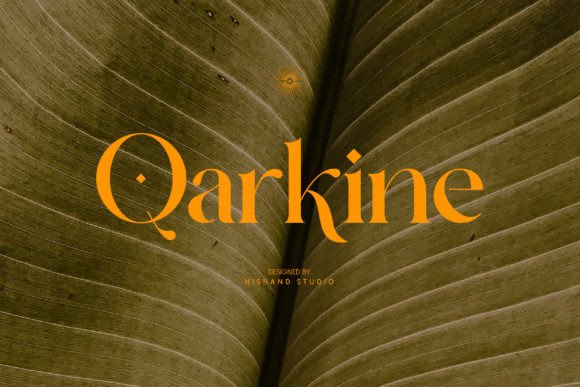
Unleash the captivating power of Qarkine, the serif font that epitomizes sophistication and allure. Crafted with meticulous precision, each letterform radiates elegance and refinement, making it the ultimate choice for designers seeking to elevate their creations to new heights of beauty and distinction.
Embark on a typographic journey where classic meets contemporary, where tradition harmonizes with innovation. Qarkine's timeless aesthetic transcends trends, ensuring its enduring appeal in a world where styles come and go. Whether you're crafting a high-end fashion brand, an exclusive lifestyle magazine, or simply seeking to elevate your designs with a touch of exclusivity, Qarkine is your perfect partner.
Immerse yourself in the world of Qarkine, where every curve and stroke is meticulously designed to evoke a sense of luxury and sophistication. Its clean lines and elegant proportions create a visual symphony that captivates and enchants, leaving an indelible mark on the hearts and minds of your audience. Let Qarkine be your muse, inspiring you to create designs that shimmer with brilliance and leave an unforgettable impression.